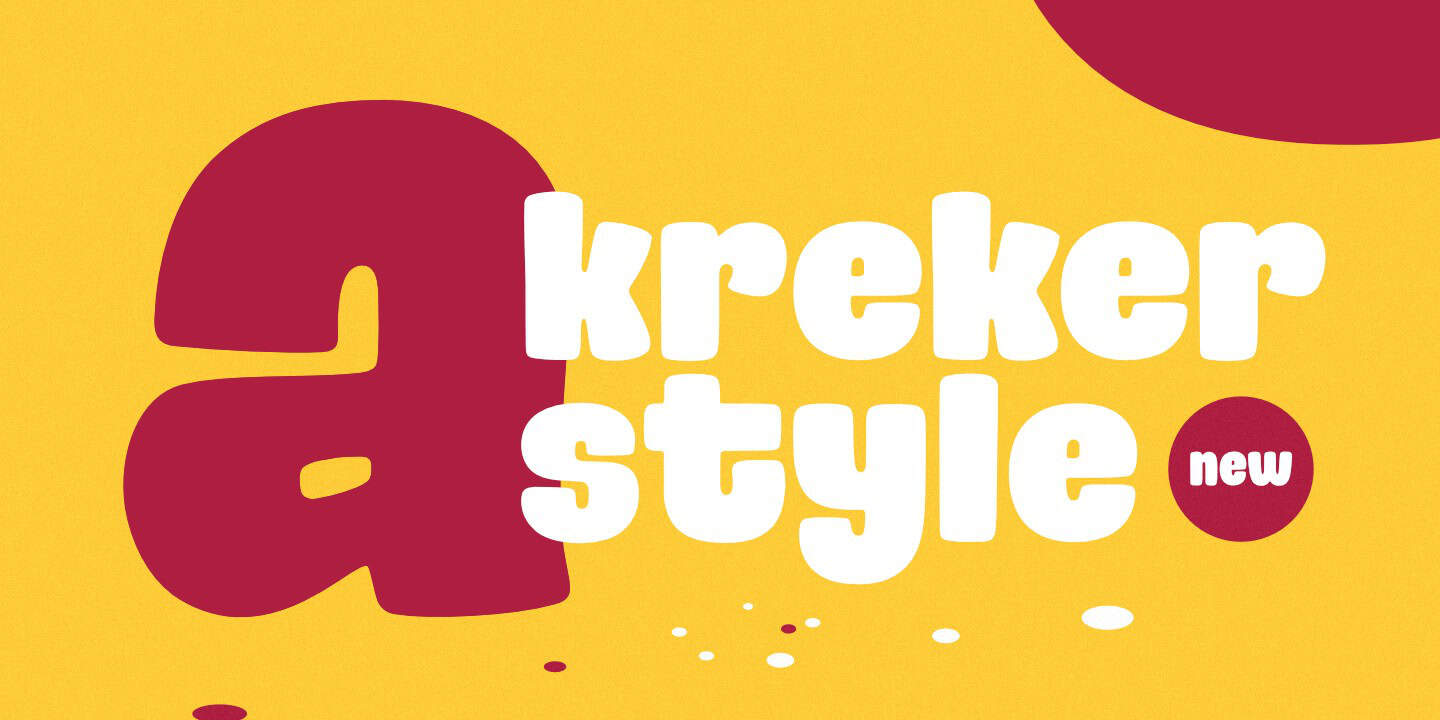
kreker
Uniquely crafted font with a bold and captivating style.
Kreker - The Font That Redefines Boldness
Kreker is a uniquely crafted bold font that brings a blend of classic and modern styles. Its striking letters and captivating aesthetics make it perfect for a variety of design ideas. Whether it’s for your logo, branding, advertisement, or website, Kreker does a fabulous job delivering an eye-catching finish.
An In-Depth Look into Kreker
With aesthetically pleasing curves and sharp angles, this font successfully exhibits splendor and readability in its design. Kreker is more just than a font; it’s a versatile tool that enables designers to create stunning visual designs with the utmost ease.
Standout Features:
-
Bold Design: Kreker is renowned for its bold characters and unique design that magnify any text or element placed beside them.
-
Versatility: It’s the jack-of-all-trades when it comes to fonts. It can be used in crafting a poster, building a webpage, or even designing a logo.
-
Easy to Read: Despite its unique style, Kreker remains easy on the eyes and highly readable, making it applicable for a multitude of projects.
Applications of Kreker
Kreker’s unique style makes it ideal for a broad spectrum of applications. If you’re a graphic designer looking for a bold and stylish font, Kreker is your go-to option. Business owners scouting for a font for their promotional materials can also significantly benefit from the distinct style obscuring Kreker.
In the digital world, bloggers and website designers can use Kreker to create eye-catching headlines and titles. Thanks to its readability, Kreker also suits content-heavy websites and articles.
Don’t let geometric regularity limit your creativity. Break away from the norm with Kreker; let your ideas materialize with an amazing and stylish font.